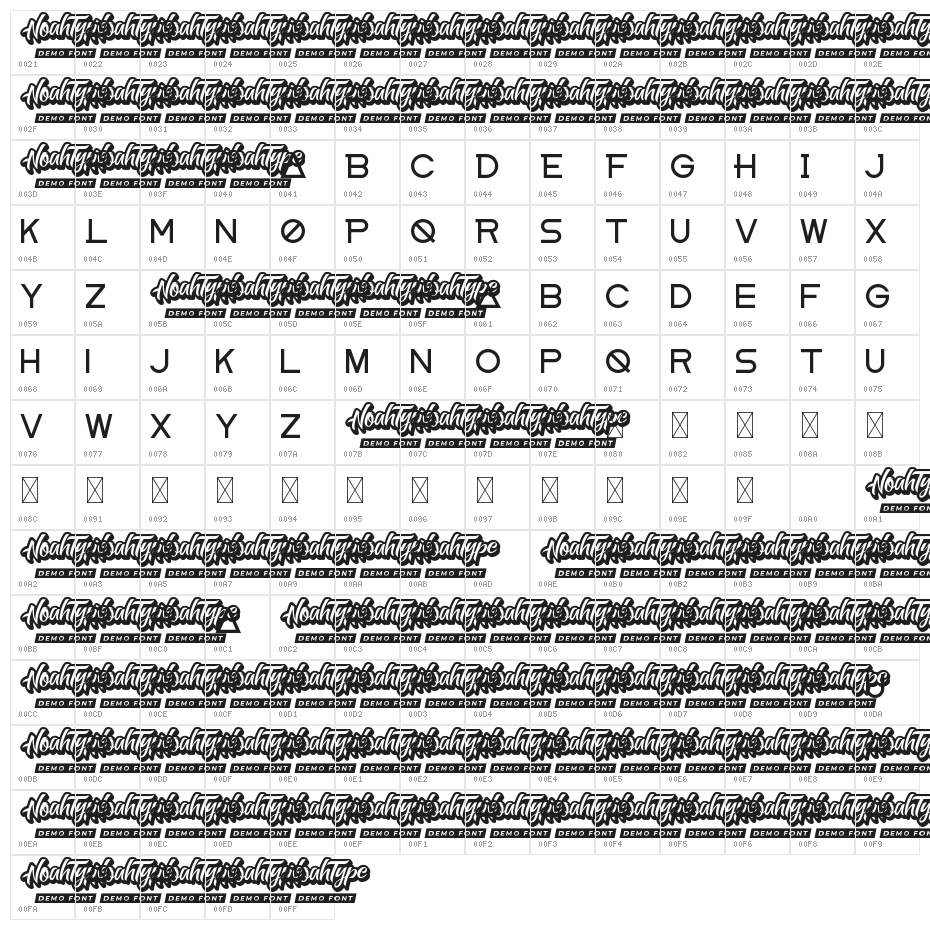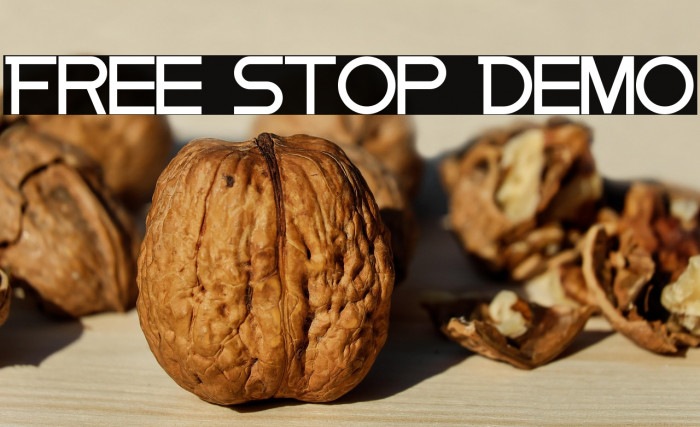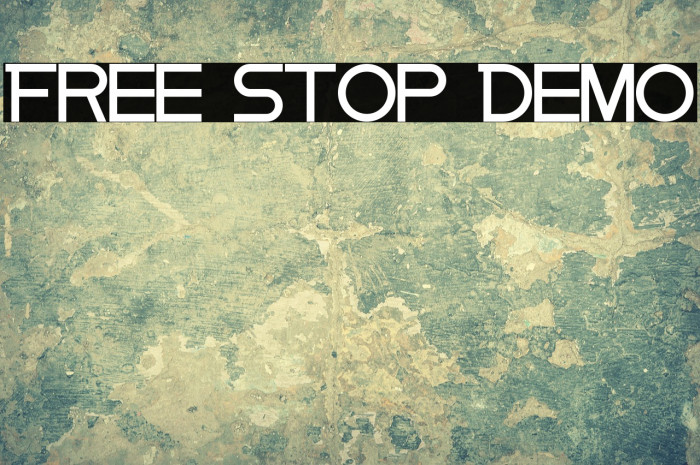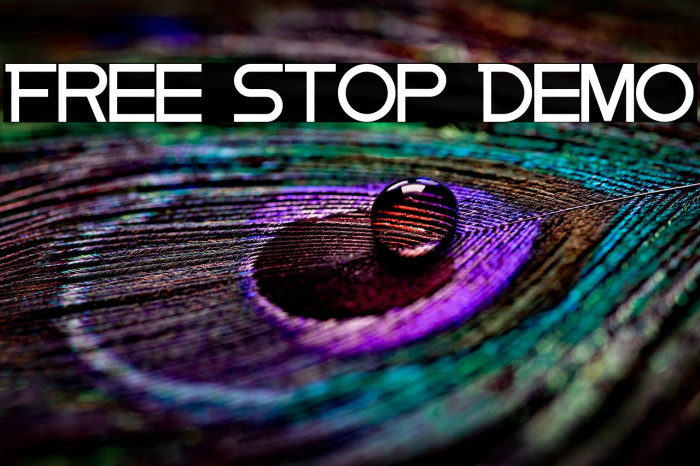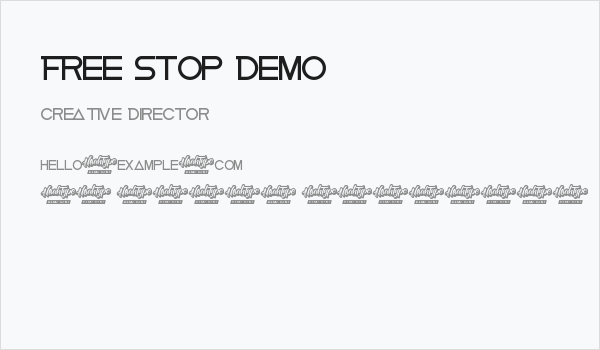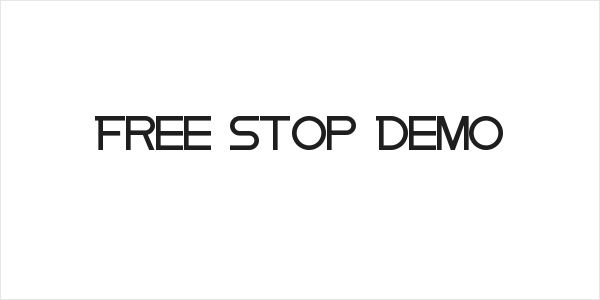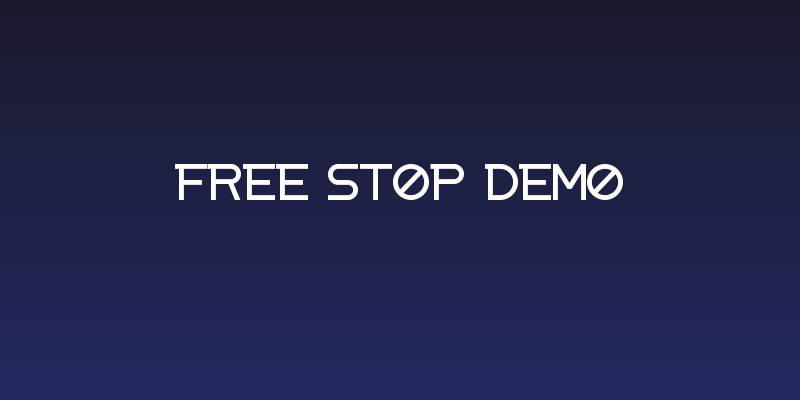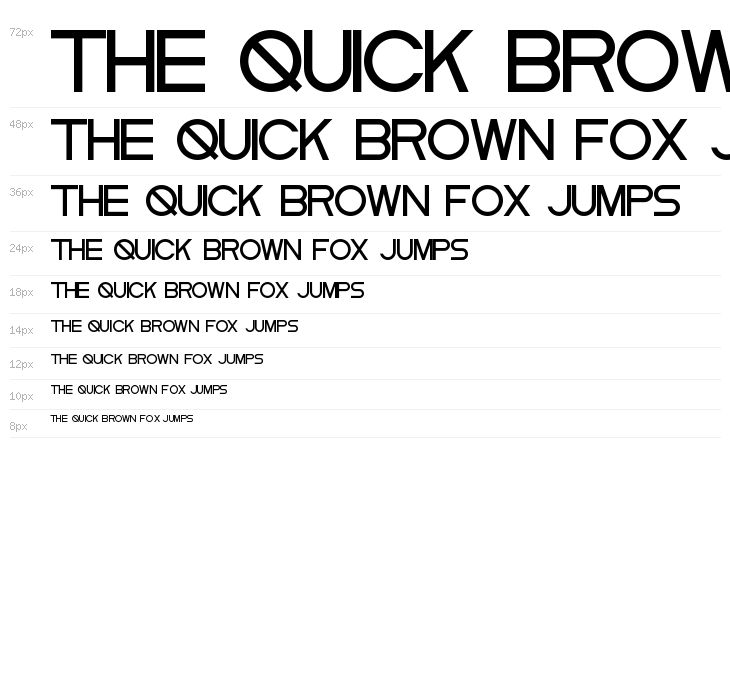
Free Stop Demo Font
Free Stop Demo Description
This font features a geometric and modern design with clean lines and sharp angles. The uppercase letters are distinct with a futuristic appearance, incorporating unique shapes like triangles and circles within the characters. The font maintains a consistent stroke width, contributing to its uniform and structured look. The absence of lowercase letters and numbers suggests a focus on bold, impactful statements. The special characters are minimalistic, aligning with the overall aesthetic. This font is ideal for projects that require a contemporary and edgy feel.
| Use Case | Logos, Headlines |
| Proposed Projects | Ideal for branding, logos, posters, and digital media that require a modern and edgy appearance. |